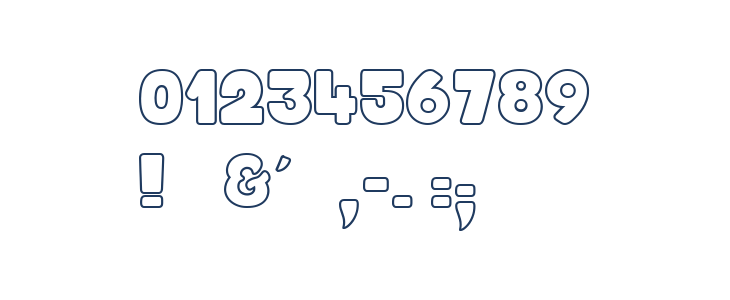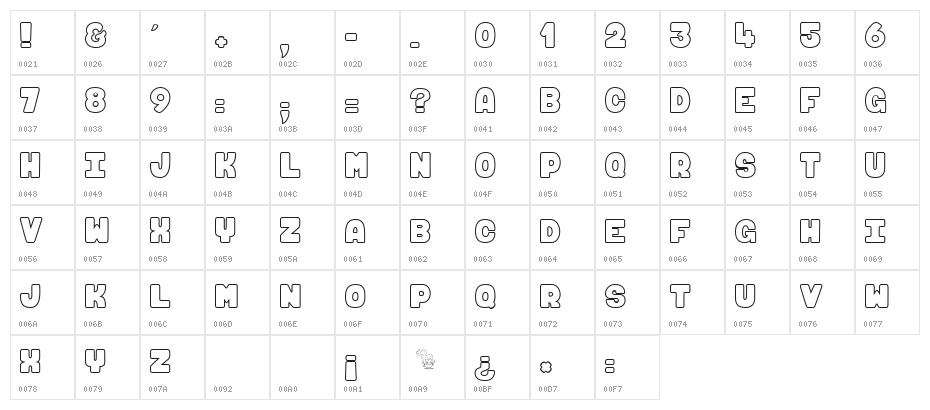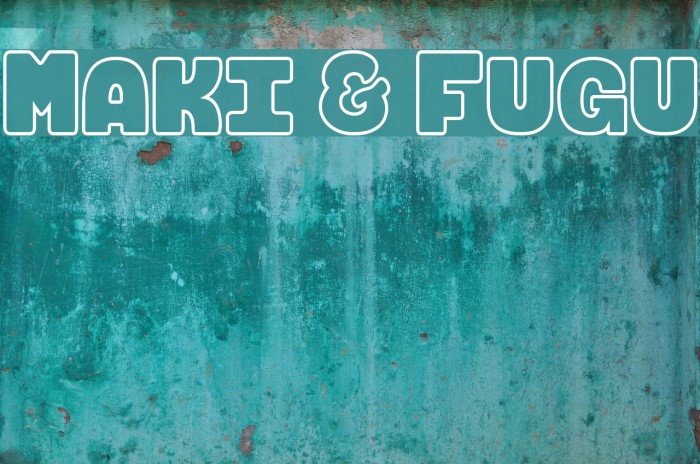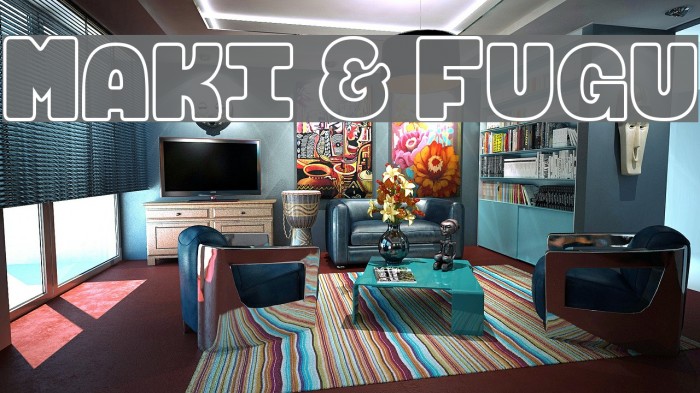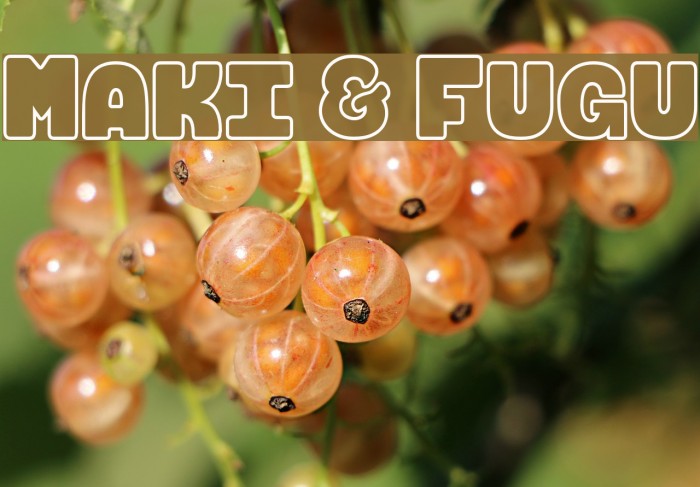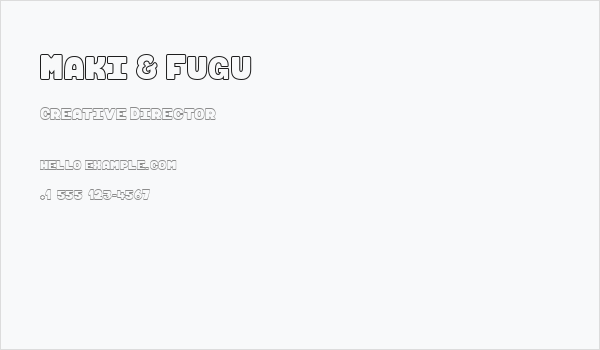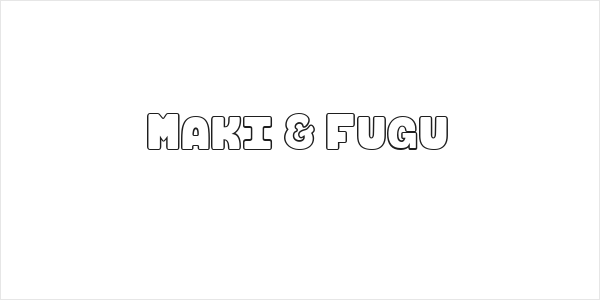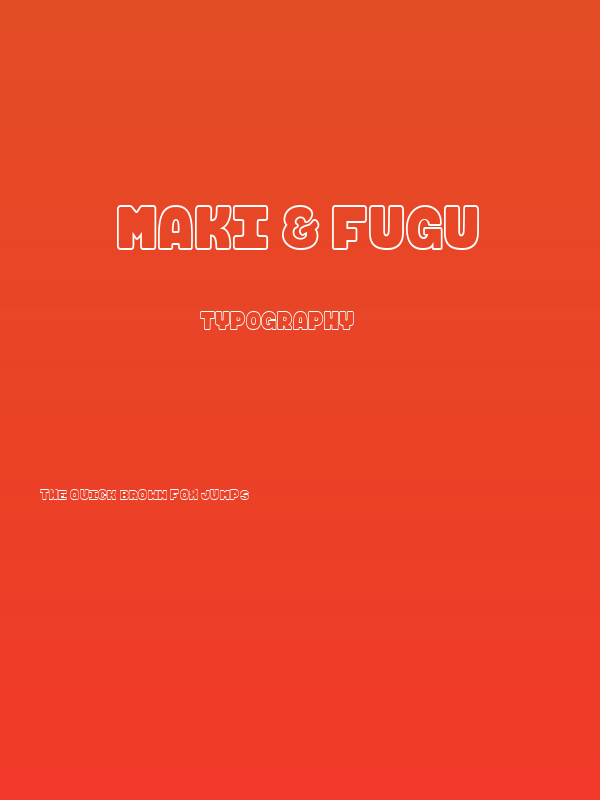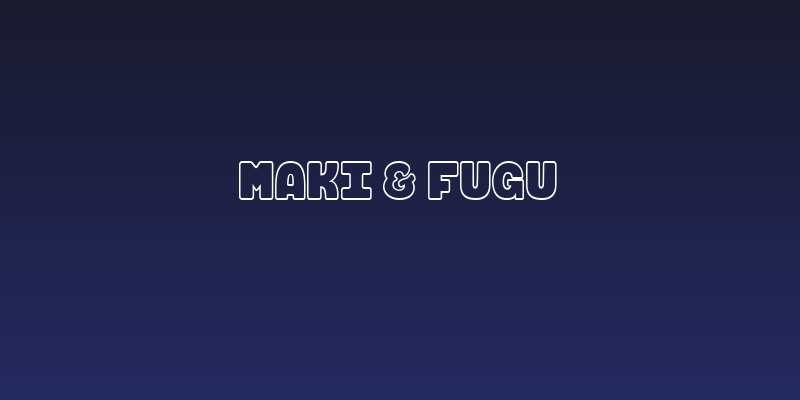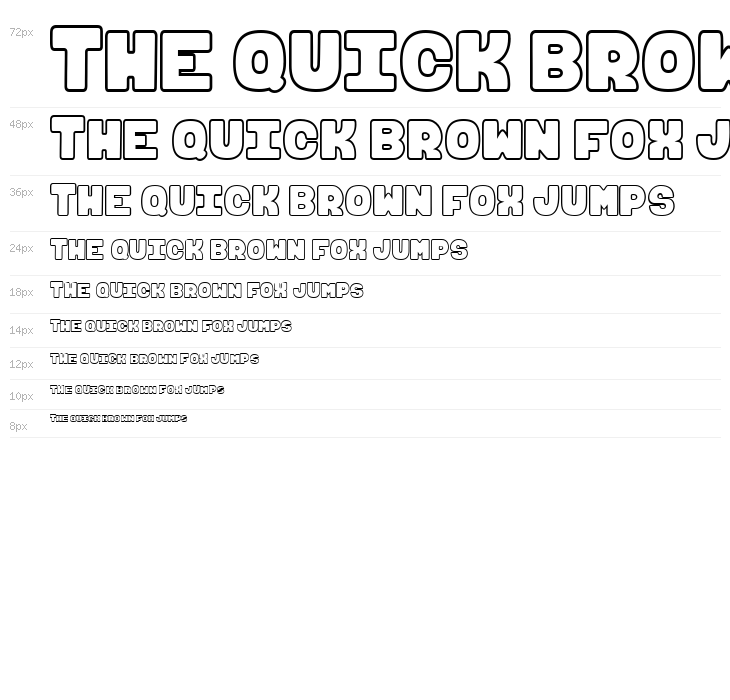
Maki & Fugu Font
Maki & Fugu Description
This font features a bold, playful design with a bubble-like outline that gives it a three-dimensional appearance. The characters are rounded and thick, creating a sense of fun and whimsy. The uppercase and lowercase letters maintain a consistent style, with uniform stroke widths and a slightly condensed form. The numerals and special characters follow the same design principles, ensuring a cohesive look across all elements. This font's unique outline style makes it stand out, perfect for projects that require a touch of creativity and boldness.
| Proposed Projects | Ideal for children's books, playful branding, posters, and creative advertising. |